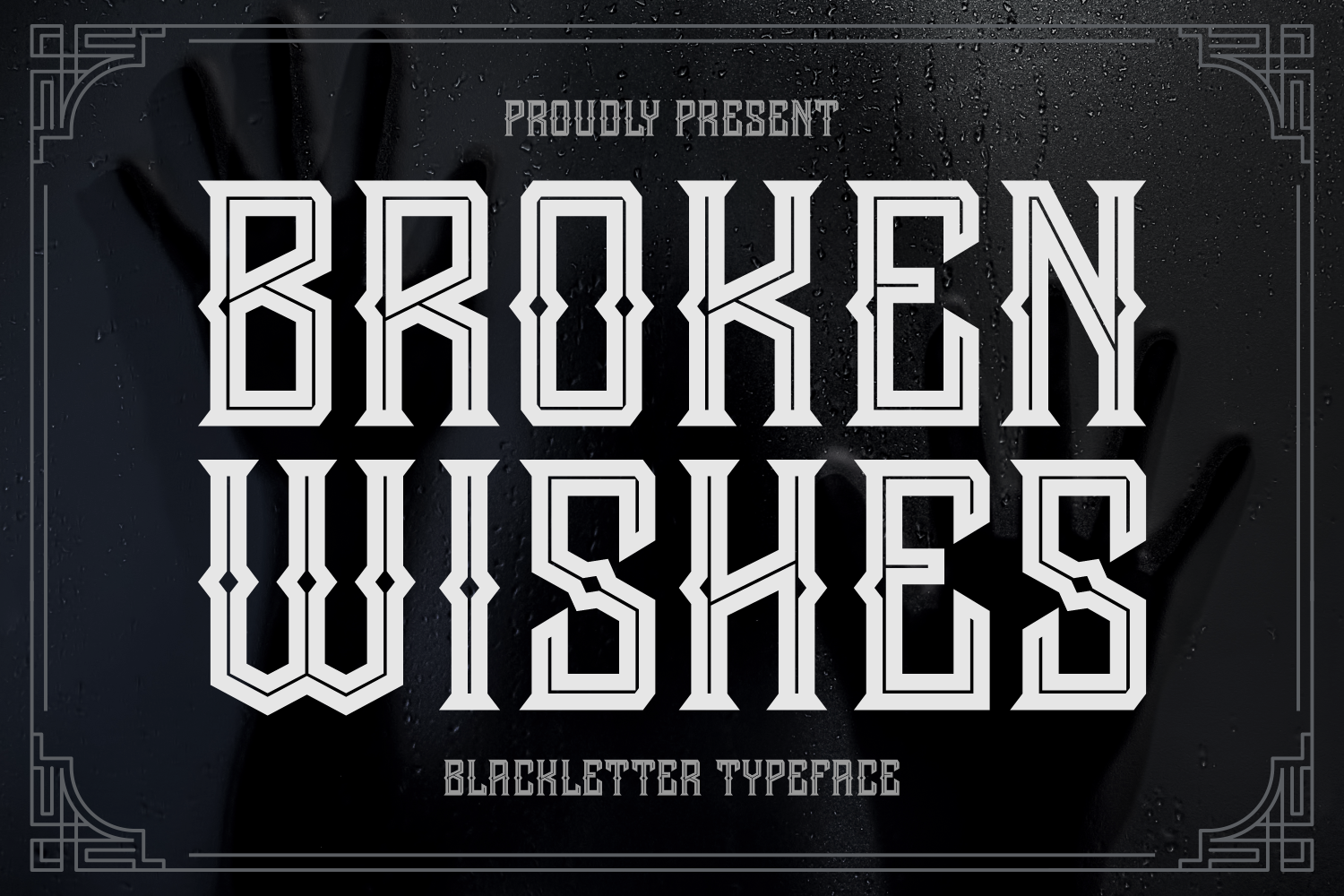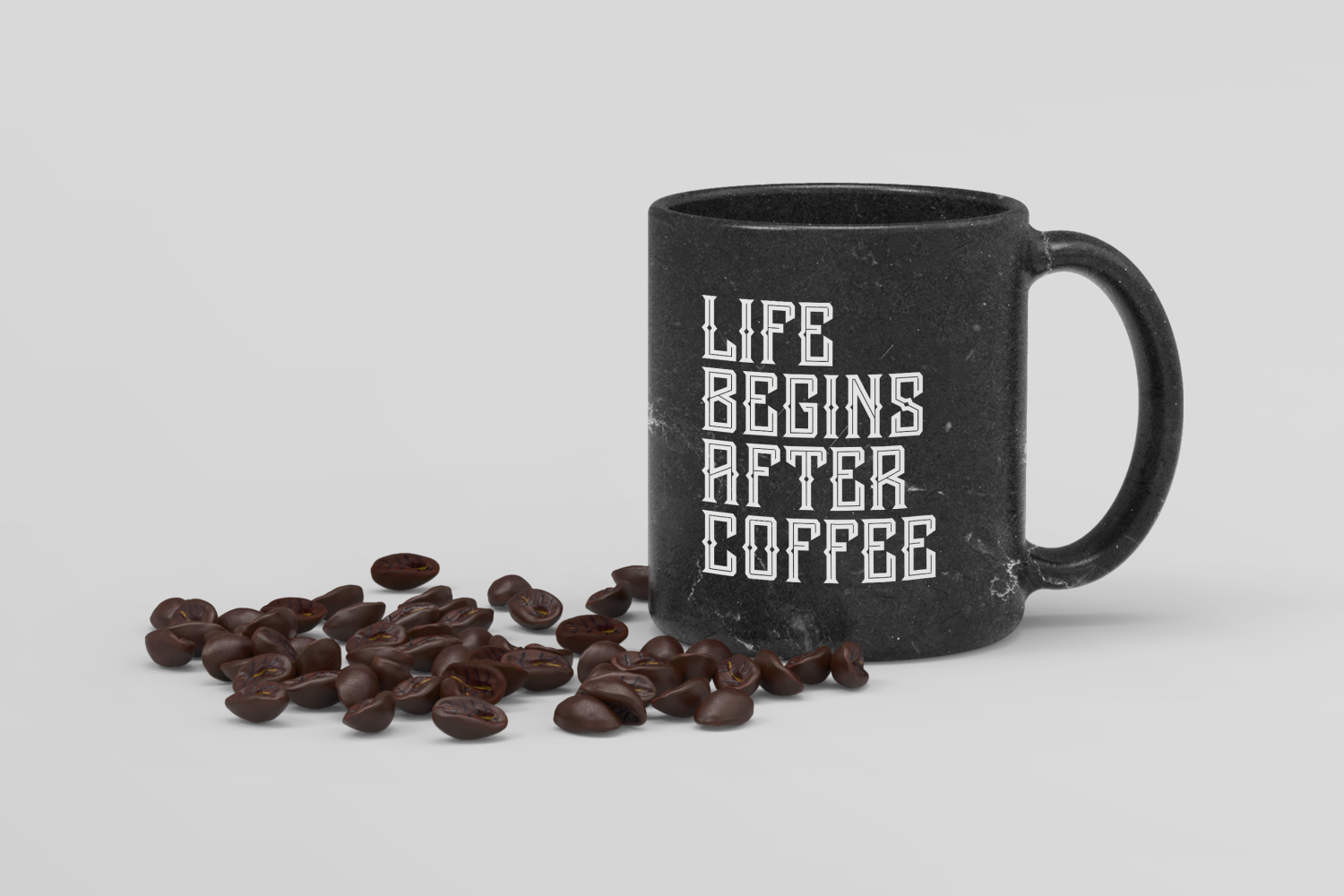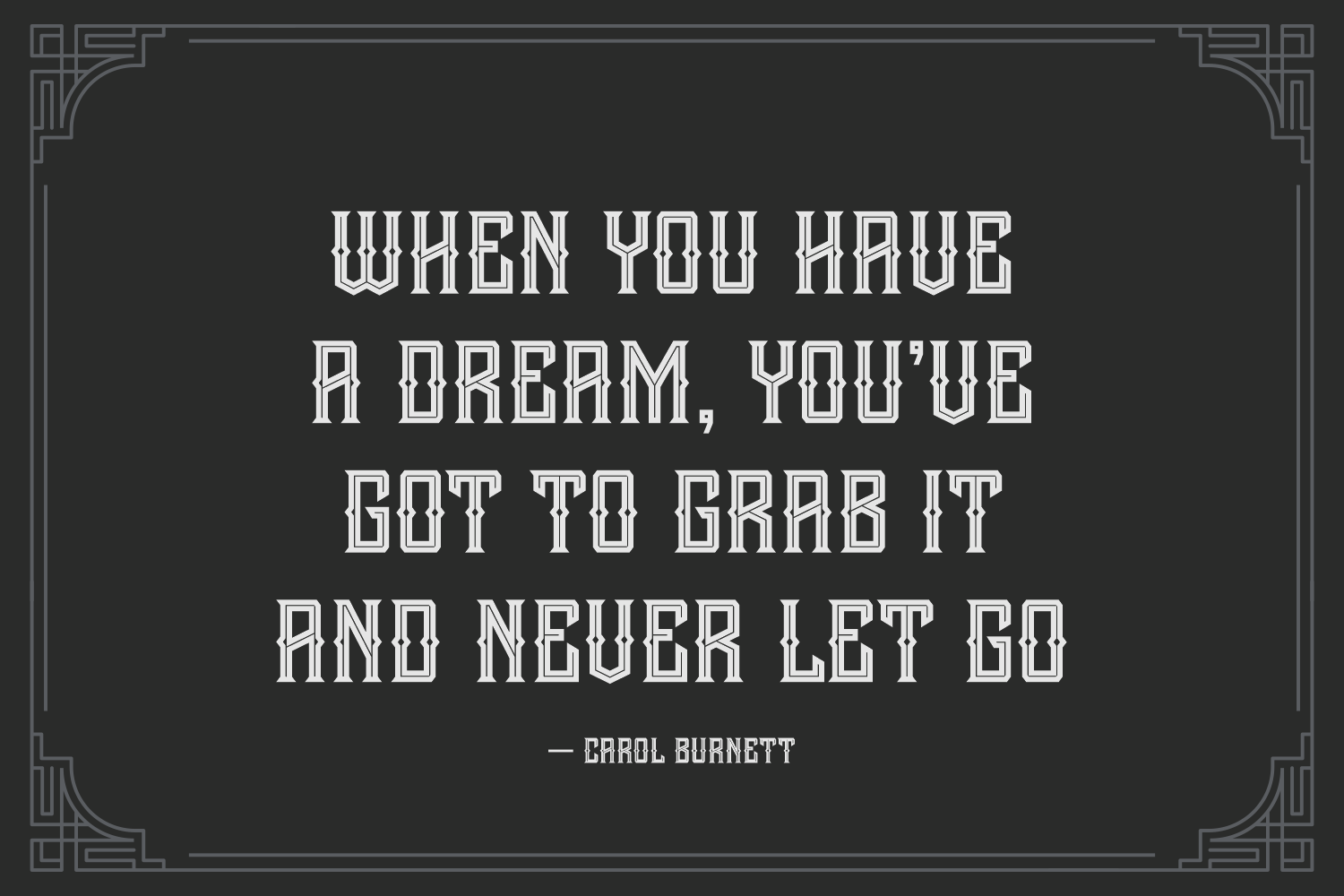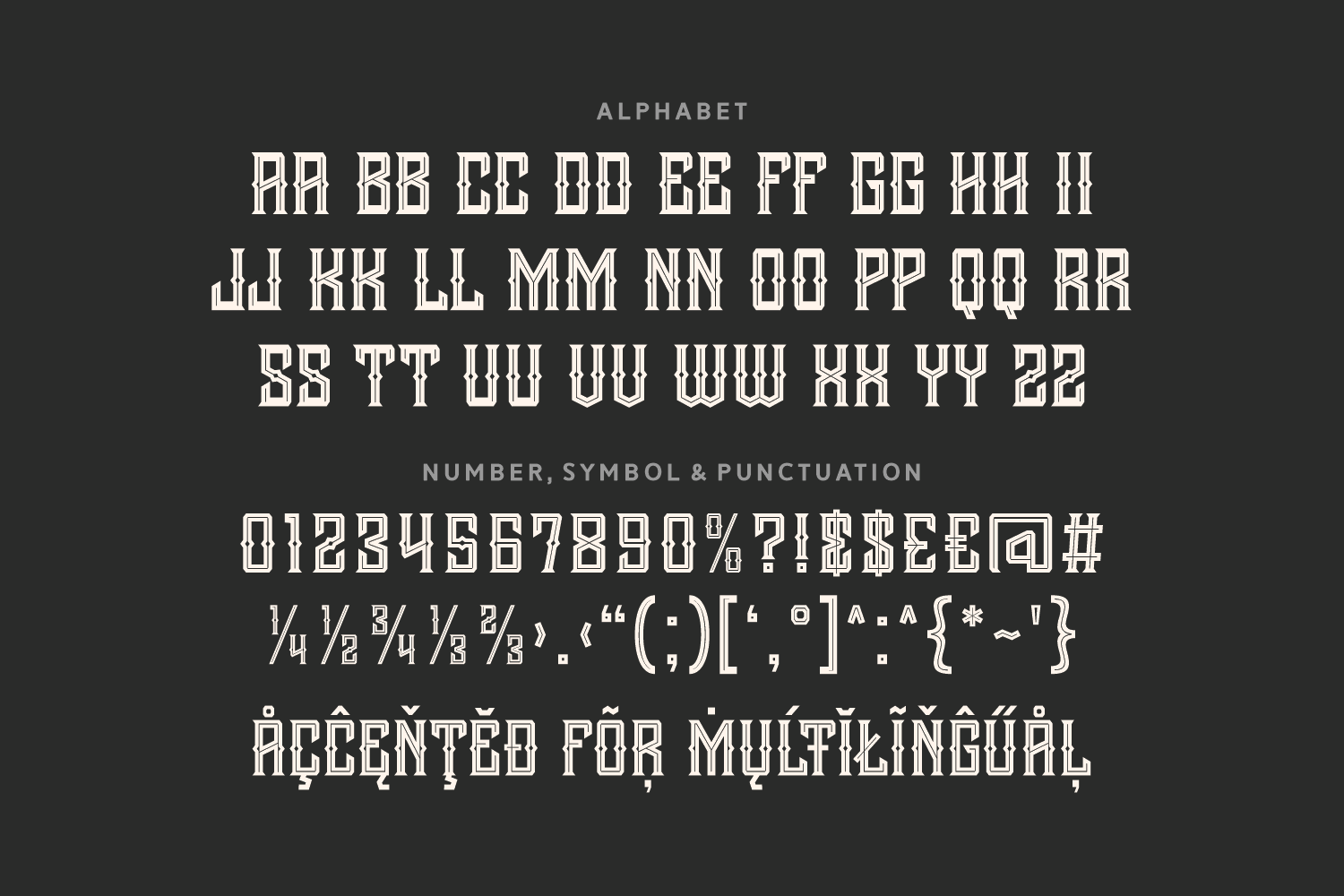
Broken Wishes
Broken Wishes is a striking blackletter font that blends gothic elegance with a modern geometric edge. Its angular cuts and tall forms evoke both mystery and refinement—ideal for horror themes, editorial layouts, fantasy branding, or moody album artwork.